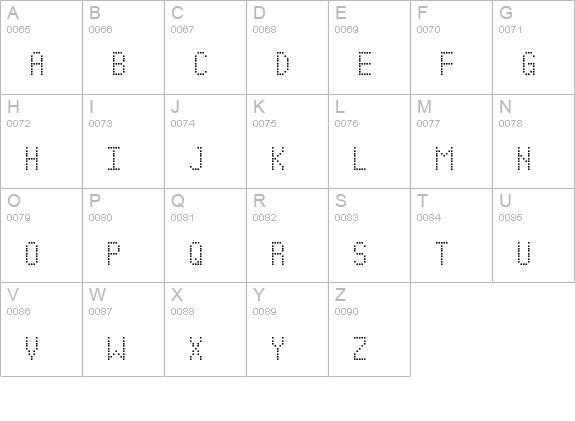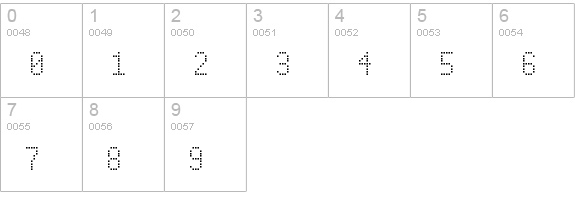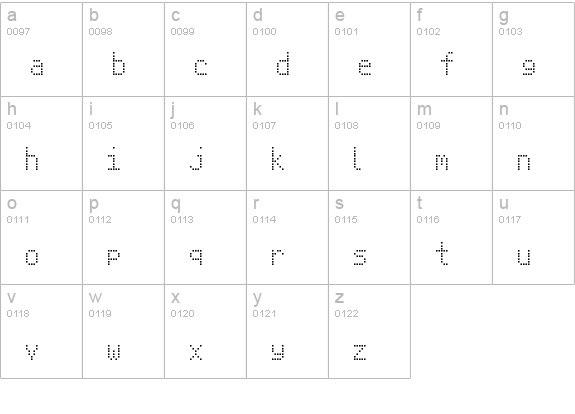
Signus Digital Square NBP Font Details
The Signus Digital Square NBP font is a stunning display font that brings a modern and futuristic touch to any design project. With its clean lines and geometric shapes, this font is perfect for showcasing your creativity in digital and print media. What sets Signus Digital Square NBP font apart is not only its exquisite design but also the fact that it is available for free. That's right, this incredible font can be downloaded without any cost at FontsMarket.com, making it easily accessible to designers, artists, and enthusiasts alike. Whether you're working on a website, logo, poster, or any other creative endeavor, Signus Digital Square NBP font will add a unique and eye-catching element to your project. Its precise and bold letterforms make it ideal for headlines, titles, and attention-grabbing text. One of the great advantages of Signus Digital Square NBP font is its versatility. It can be used in a variety of industries and themes, such as technology, gaming, futuristic, and science fiction. Its sharp edges and sleek design give it a contemporary and cutting-edge feel, making it perfect for projects that require a modern aesthetic. Downloading the Signus Digital Square NBP font from FontsMarket.com is a straightforward process. Simply visit the website, locate the font, and click on the download button. Once downloaded, you can easily install it on your computer or device and start using it in your design projects right away. In conclusion, the Signus Digital Square NBP font is a must-have for any designer or creative individual looking to make a bold statement. Its striking design, coupled with the fact that it is freely available to download at FontsMarket.com, makes it an excellent choice for adding a touch of modernity and innovation to your designs. So why wait? Start exploring the endless possibilities that the Signus Digital Square NBP font has to offer today!